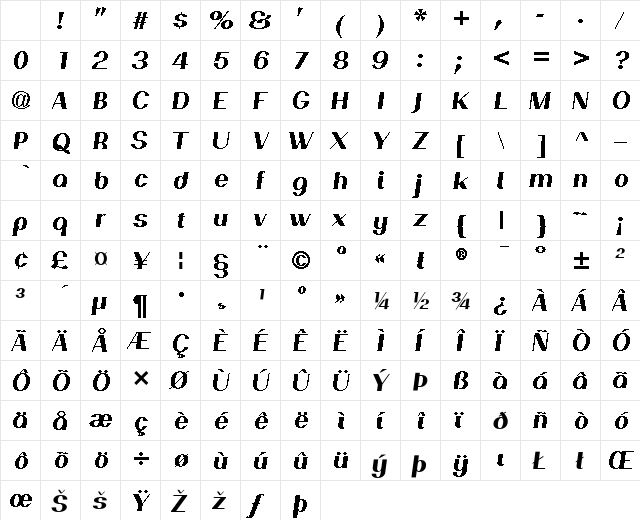
PassionSansPDan is a composed and adaptable typeface that performs quietly and consistently across a wide range of design contexts. The slanted form adds forward momentum and visual energy.
Pro Tip: Use PassionSansPDan for emphasis, pull quotes, and subheadings where its slanted energy can add rhythm to the layout.